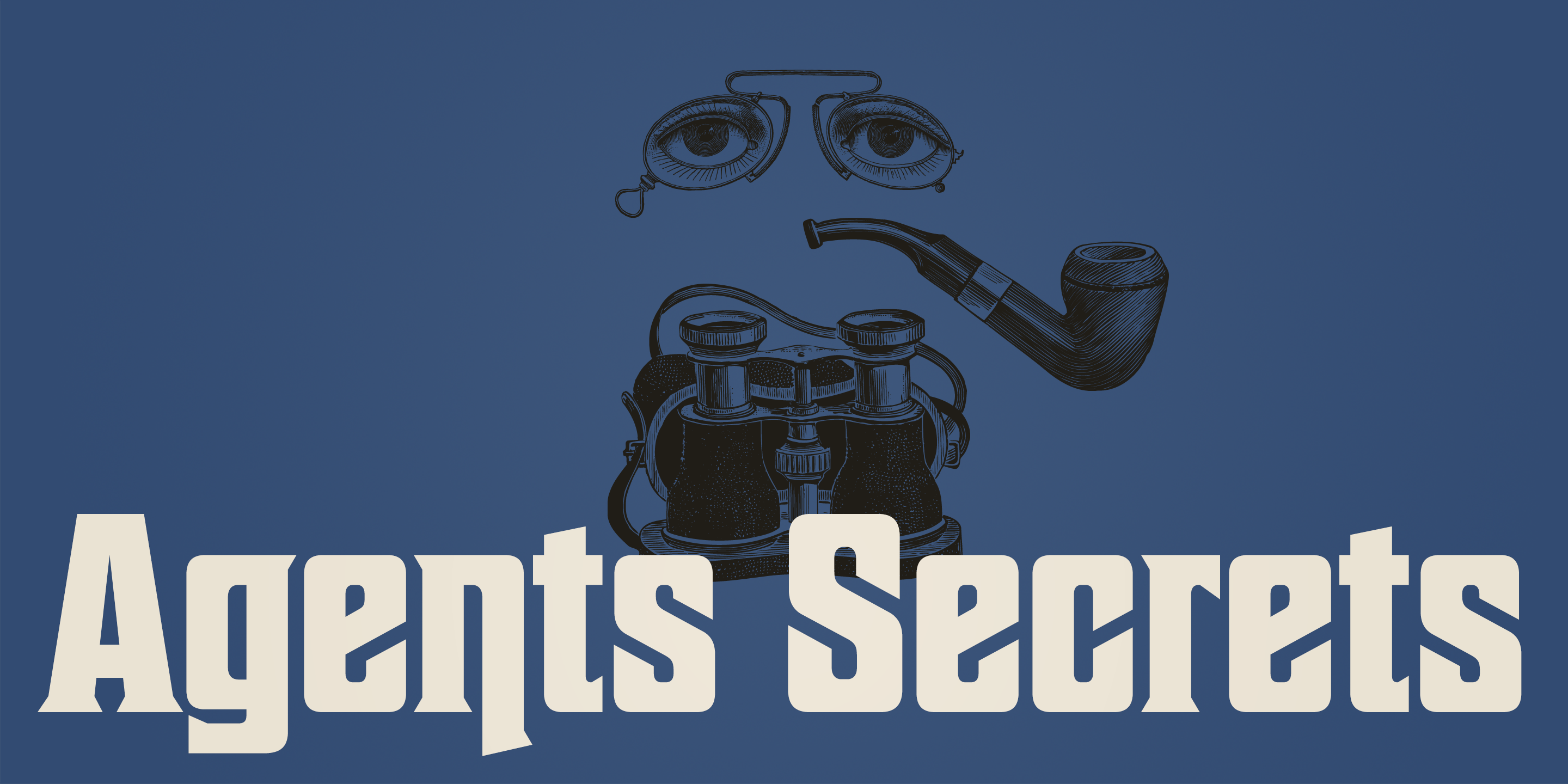
Sheepman Font is perfect for pastoral farm branding, wool product packaging, shepherd's market signage, rural livestock company logos, traditional farming materials, countryside bed & breakfast designs, rustic yarn shop branding, agricultural fair posters, pastoral retreat centers, and authentic farming community communications that require honest rural character and pastoral warmth.
This font is exciting because it embodies the humble wisdom and pastoral charm of traditional shepherding with warm, approachable letterforms that reflect the gentle strength and community spirit found in rural farming life and pastoral traditions. Sheepman Font features soft curves and grounded proportions that capture the peaceful rhythm of countryside living while maintaining the reliability and trustworthiness essential for agricultural and pastoral branding.
Sheepman Font family includes Regular, Bold, Light, Pastoral, Rural, Countryside, Traditional, and Farming versions, plus agricultural symbols, pastoral ornaments, farm icons, and rural design elements that enhance the authentic farming aesthetic and provide comprehensive solutions for agricultural and pastoral applications.
For authentic pastoral and agricultural design projects, Sheepman Font Free Download delivers unmatched rural character and farming authenticity. The font's pastoral letterforms and farming spirit make it perfect for agricultural businesses, rural tourism, and farm-based brands seeking to communicate honesty, tradition, and connection to pastoral life. Its warm design appeals to audiences who value traditional farming practices and rural community values. The character set includes agricultural symbols and pastoral markers that reflect farming industry standards. Professional designers appreciate its ability to convey both rural authenticity and modern accessibility while maintaining excellent readability across agricultural marketing, farming communications, and pastoral branding materials, making it essential for brands that want to capture the honest simplicity and pastoral wisdom that defines traditional farming life and communicate the gentle strength and community spirit of rural agricultural heritage.